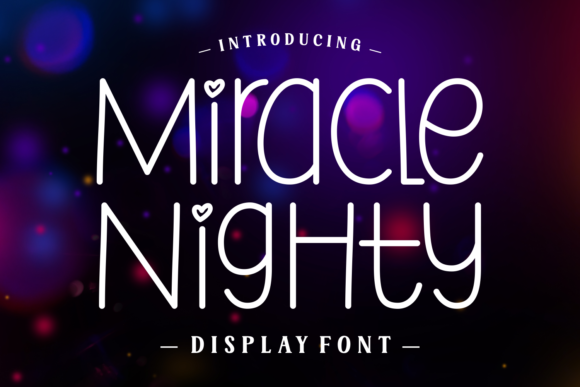
In the realm of typography, where letters dance and words ignite imagination, there exists a font of extraordinary grace and charm—Miracle Nighty. This sans serif masterpiece, crafted with meticulous precision by the renowned Jasm (7NTypes), is not merely a collection of glyphs; it's an invitation to embark on a journey of creative expression.
Imagine the whispered secrets of a moonlit night, the gentle caress of a summer breeze, the vast expanse of a starry sky—these are the elements that inspired the creation of Miracle Nighty. Its minimalist design, devoid of excessive ornamentation, allows the essence of your words to shine through, unadorned and captivating.
With its clean lines and understated elegance, Miracle Nighty effortlessly complements a myriad of design projects. Whether you're crafting a book manuscript that demands a touch of sophistication, a business proposal that exudes professionalism, or a personal journal that craves a hint of intimacy, this font will elevate your words, transforming them into visual poetry.
Step into the world of Miracle Nighty and discover a font that's as versatile as it is beautiful. Its characters, meticulously crafted with subtle variations in thickness and spacing, create a visual rhythm that guides the reader's eye effortlessly across the page. It's a font that invites engagement, encouraging readers to delve deeper into your narrative, to lose themselves in the tapestry of your words.
With its ability to effortlessly adapt to various design aesthetics, Miracle Nighty is the perfect choice for designers seeking a font that can seamlessly blend with their creative vision. Its understated charm allows it to harmonize with a wide spectrum of visual elements, from bold graphics to delicate illustrations, without overpowering or diminishing their impact.
But it's not just designers who will find solace in the embrace of Miracle Nighty. Writers, too, will discover in this font a kindred spirit, a companion that understands the power of words and the importance of presenting them in a manner that does justice to their significance. Whether you're a novelist crafting intricate tales, a poet weaving lyrical verses, or a journalist reporting on the world's events, Miracle Nighty will become an indispensable tool in your creative arsenal.
So, embark on this typographic adventure with Miracle Nighty, a font that's as versatile as your imagination, as captivating as a starry night, and as timeless as a classic tale. Let your words take flight, adorned with the grace and elegance of this remarkable font, and watch as your creative vision takes shape, leaving an indelible mark on the hearts and minds of your readers.